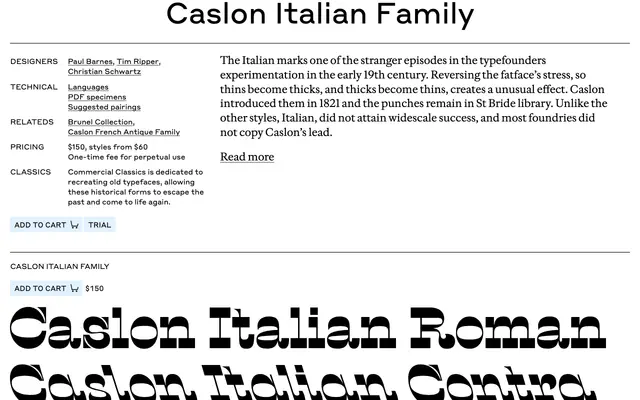
Caslon Italian
A revival of Caslon's 1821 reverse-contrast Italian, one of the strangest episodes of nineteenth-century typefounding.
A reverse-contrast display face by Paul Barnes that revives Caslon's 1821 Italian, one of the stranger experiments of early nineteenth-century typefounding. By reversing the fatface's stress so thins become thicks and thicks become thins, the original produced an unusual effect that other foundries largely declined to copy. Sits at the heart of the Caslon revival programme alongside Caslon French Antique and Caslon Italian Shaded for posters, packaging and editorial display rooted in the Victorian poster tradition.
Commercial Type describe Caslon Italian as a reverse-contrast display style introduced by Caslon in 1821, with the fatface's stress reversed so thins become thicks and thicks become thins. The original punches remain in St Bride library.